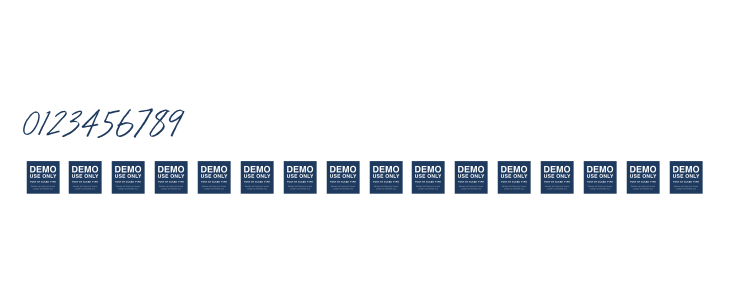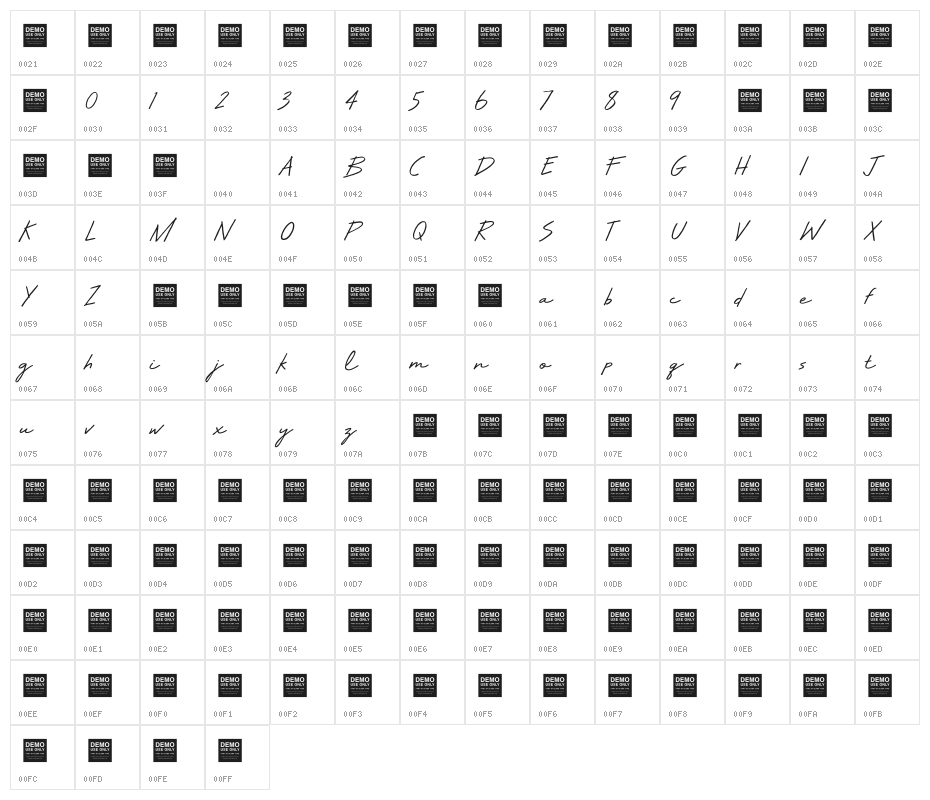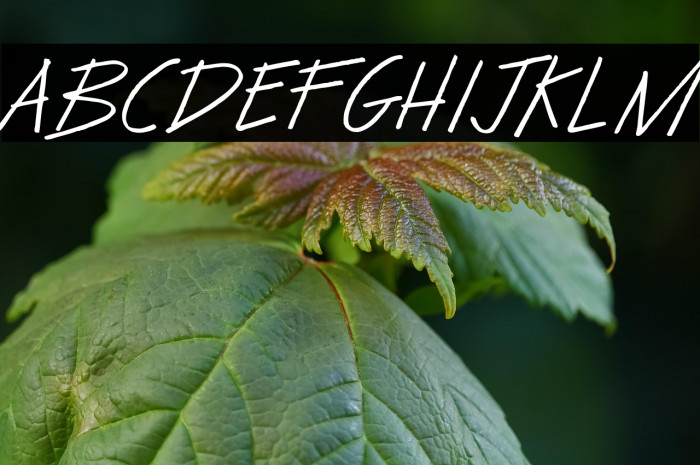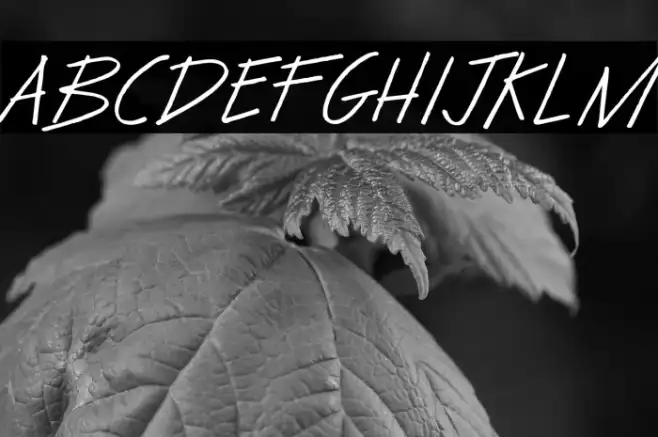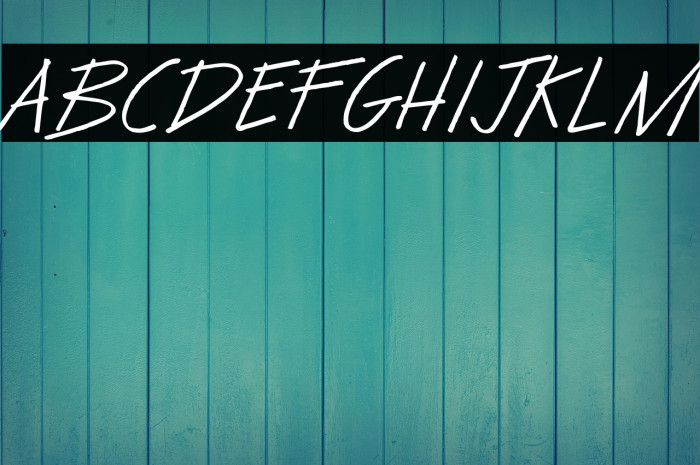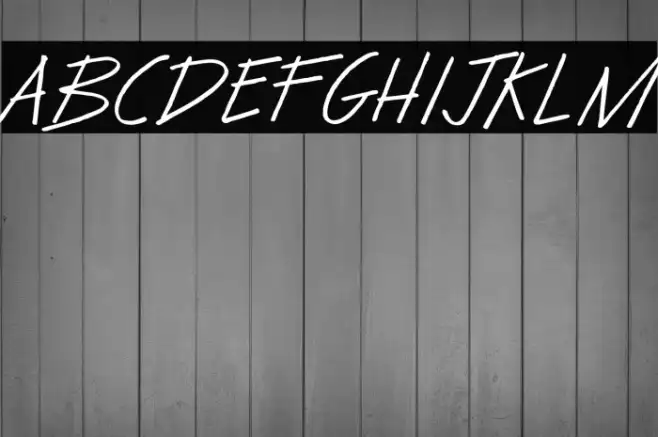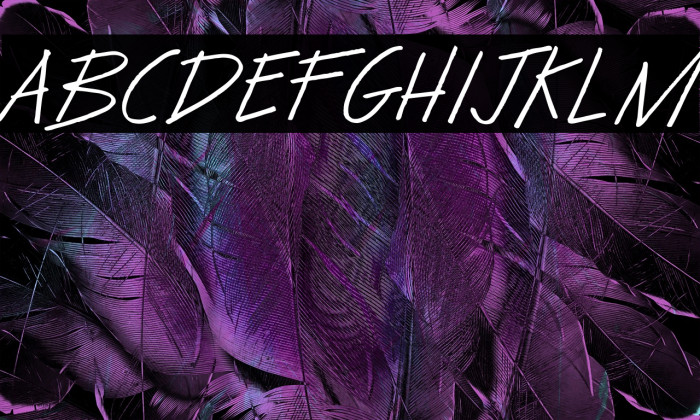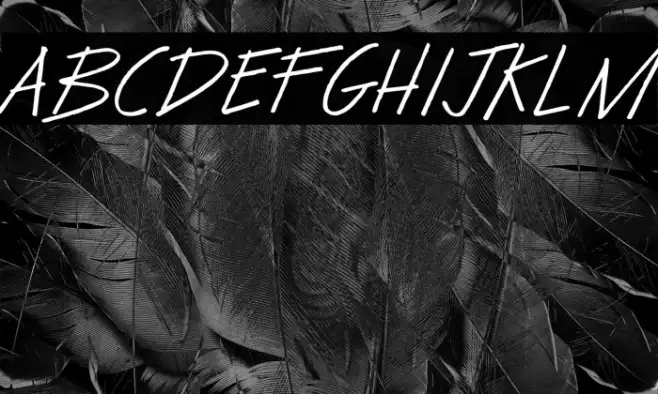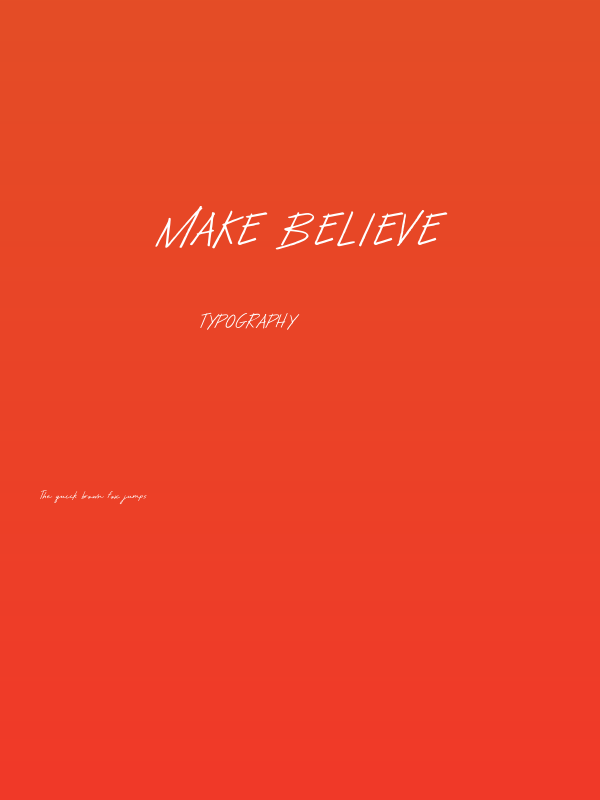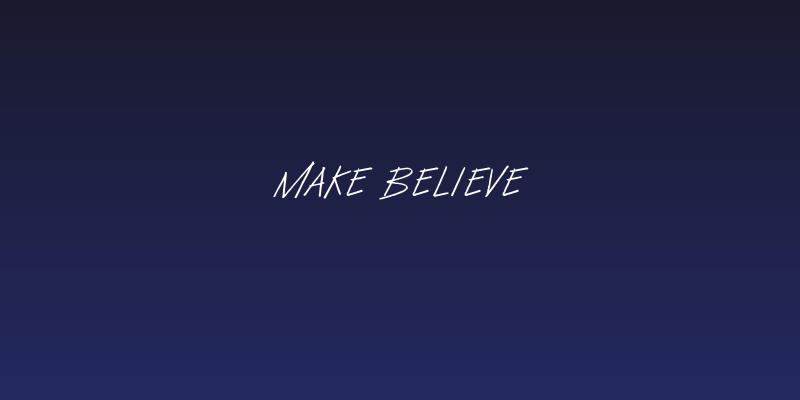
Make Believe Font
Make Believe Description
This font exudes a casual and handwritten style, characterized by its fluid and natural strokes. The uppercase letters are slightly slanted, giving a dynamic and lively appearance, while the lowercase letters maintain a consistent flow that mimics natural handwriting. The numerals are clear and legible, complementing the overall style. The font's informal and approachable nature makes it suitable for projects that require a personal touch. Its design is both modern and timeless, offering versatility in various applications.
| Overall Style | Casual, Modern |
| Use Case | Headlines, Logos, Personal projects |
| Proposed Projects | Ideal for personal invitations, greeting cards, branding projects, and social media graphics. |